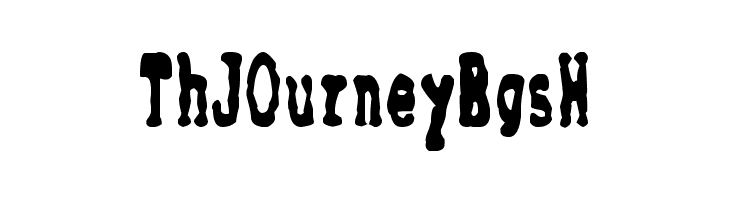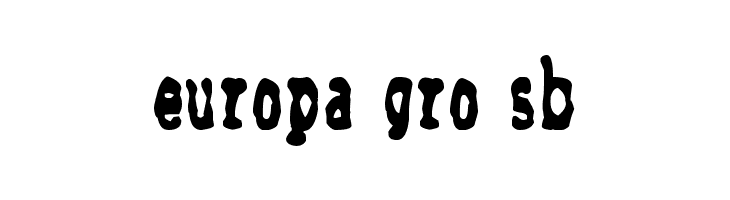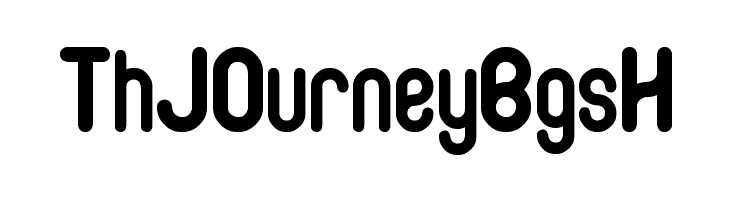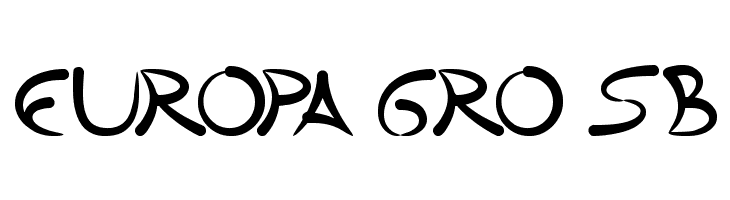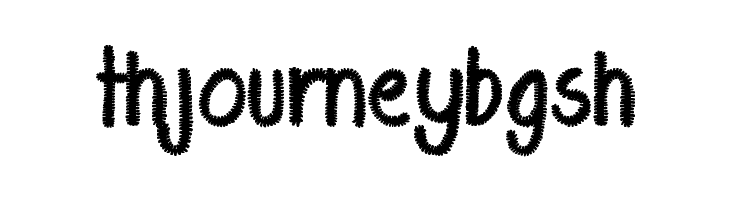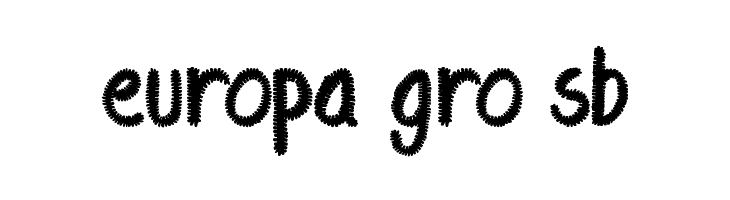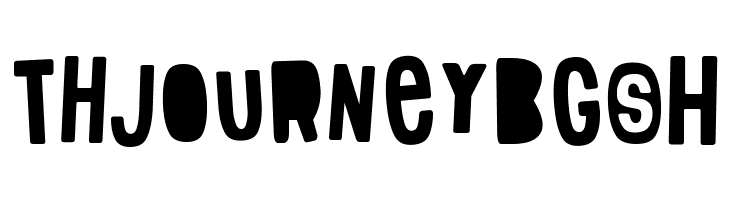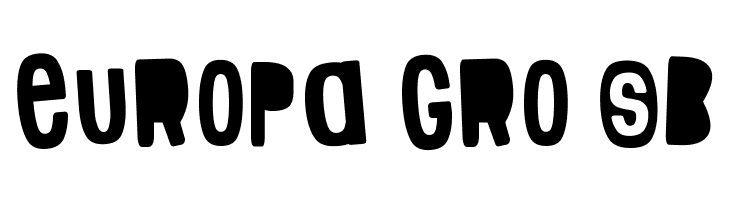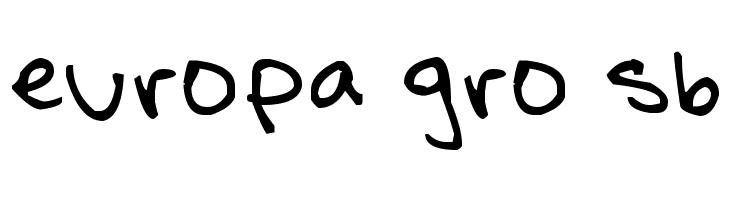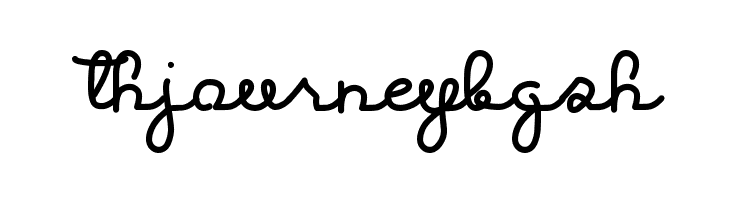
• extra hot
An artistic font with flowing, calligraphic lines and dynamic curves.
• extra hot
A bold, artistic font with flowing, dynamic strokes and a modern, edgy style.
• ExtraFineScript
An elegant and sophisticated script font with intricate, flowing characters.
• ExtraHighs
A playful, whimsical script font with smooth, interconnected letters.
• Eyeliner Tattoo
A bold, decorative font with spiky, textured accents for a playful and edgy look.
• Fake Smiths
A bold, playful font with a hand-drawn, quirky style.
• Faktur
• Fall is still like Summer in Ca
A playful, handwritten font with bold, rounded strokes and a casual style.
• FAMILY & friend
A playful, rounded font with bold, smooth curves and a friendly appearance.
• FAMILY & friend
A playful, rounded font with smooth curves and consistent stroke width.